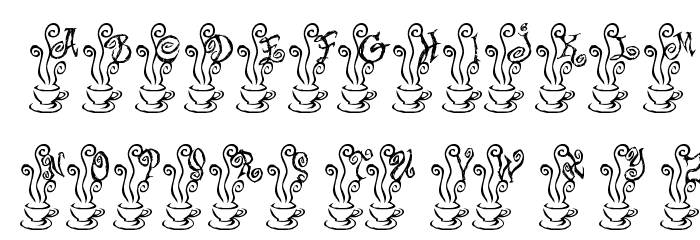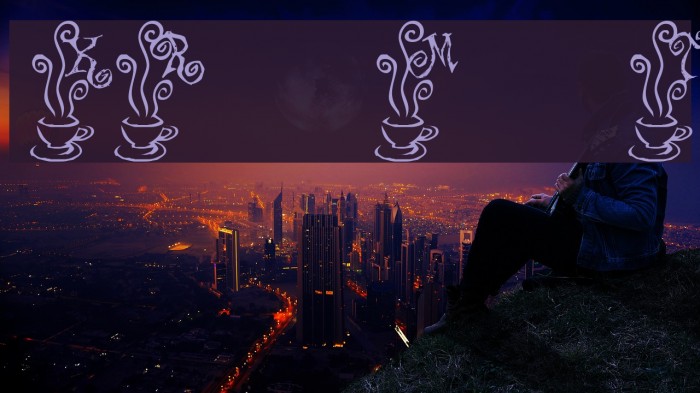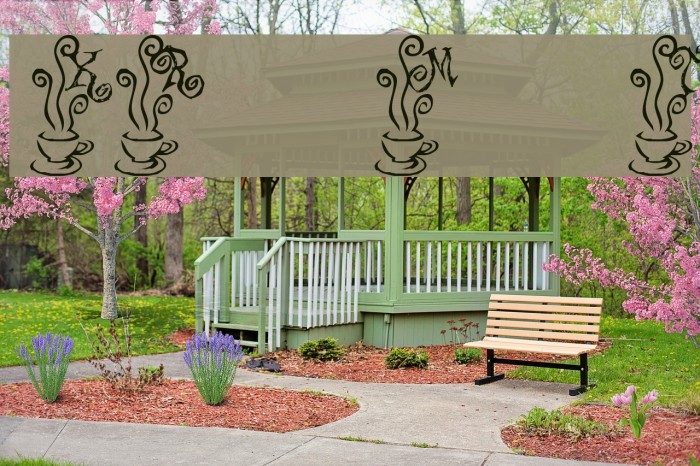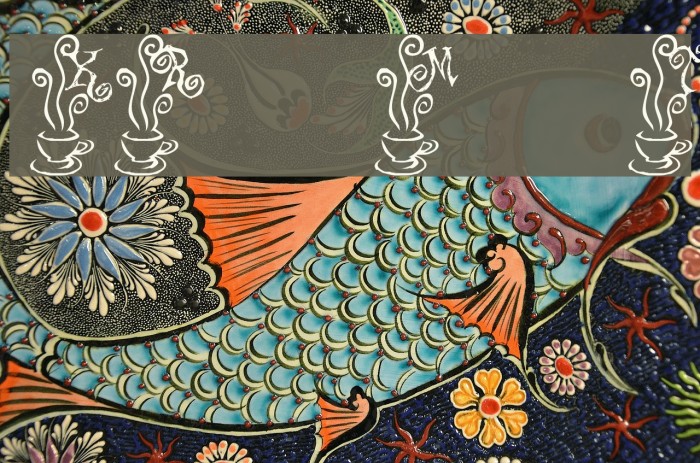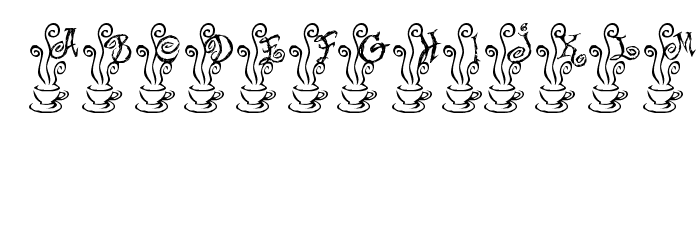
KR Magic Tea Font
This whimsical and decorative font features letters emerging from steaming cups, creating a playful and imaginative design. Each character is intricately crafted with swirling steam patterns that add a sense of movement and creativity. The font is highly stylized, with a unique blend of elegance and fun, making it stand out for its artistic flair. The combination of the teacup base and the swirling steam gives it a magical, almost storybook-like quality, perfect for projects that require a touch of fantasy or charm.
A whimsical, decorative font with letters emerging from steaming cups.
• Proposed Projects: Ideal for tea-themed events, children's books, fantasy stories, cafe branding, and whimsical invitations.